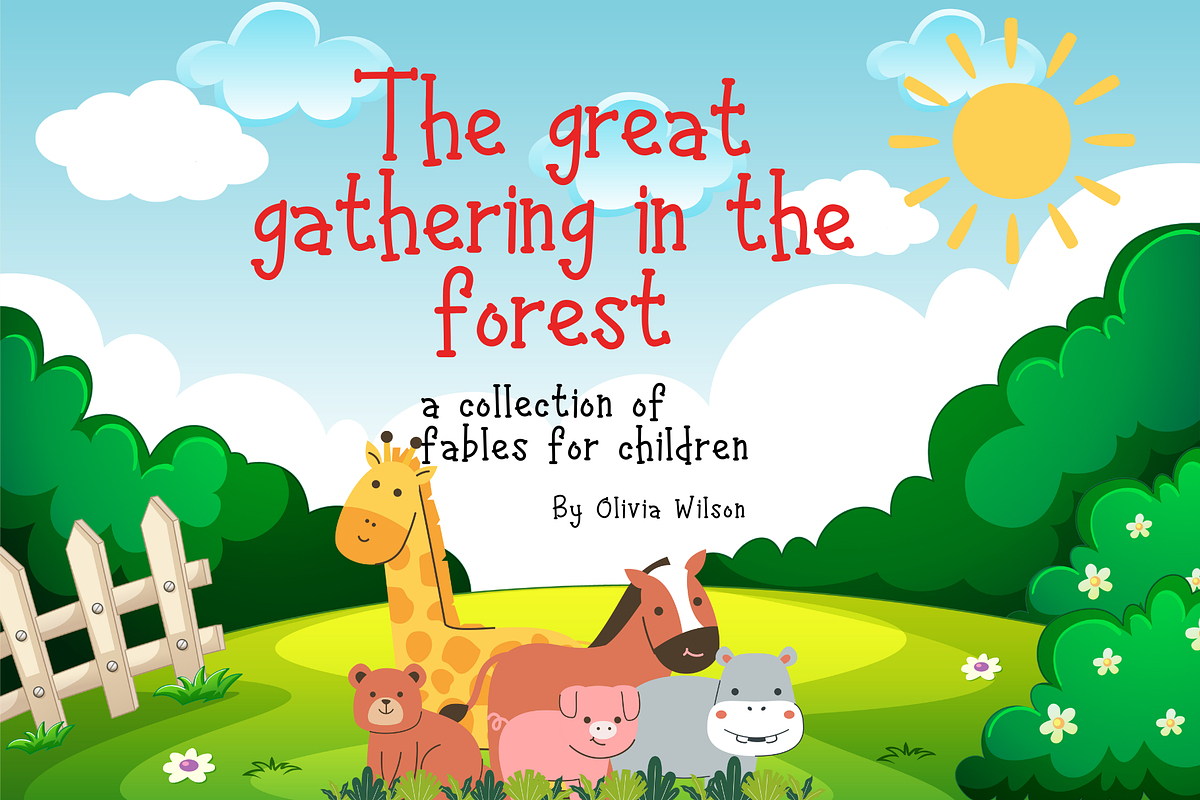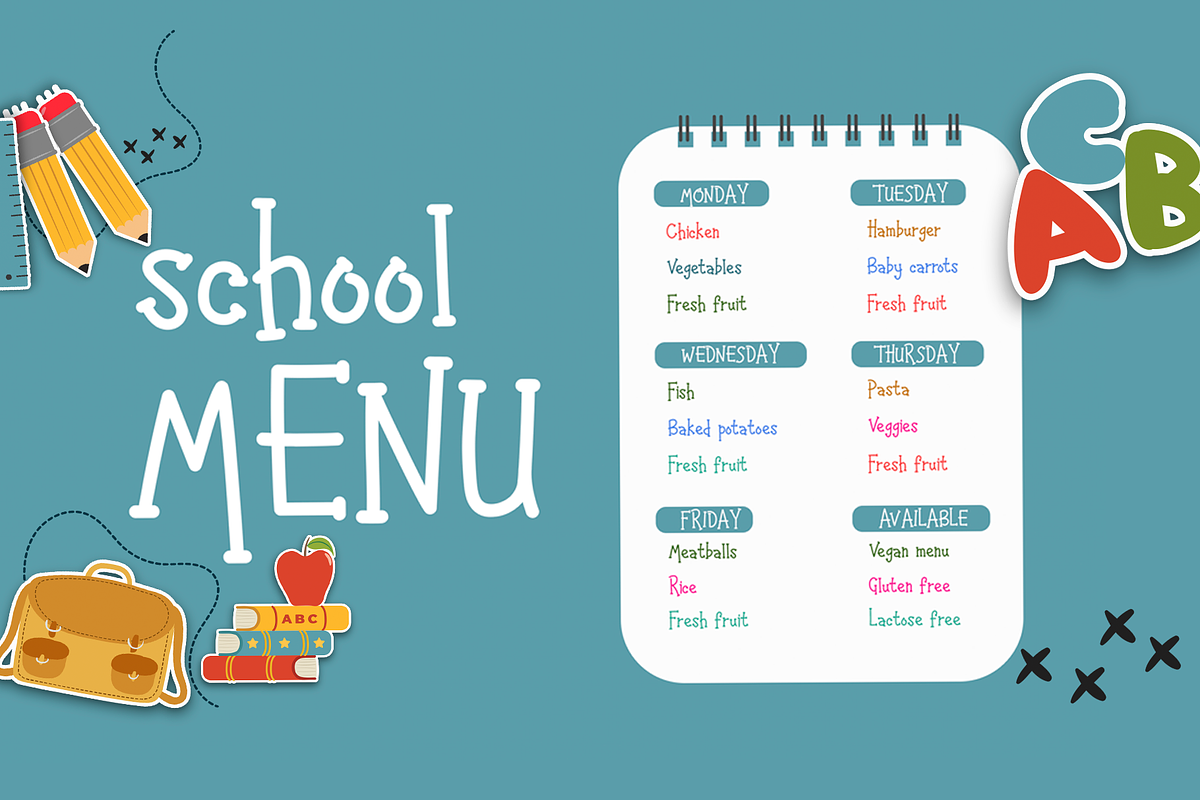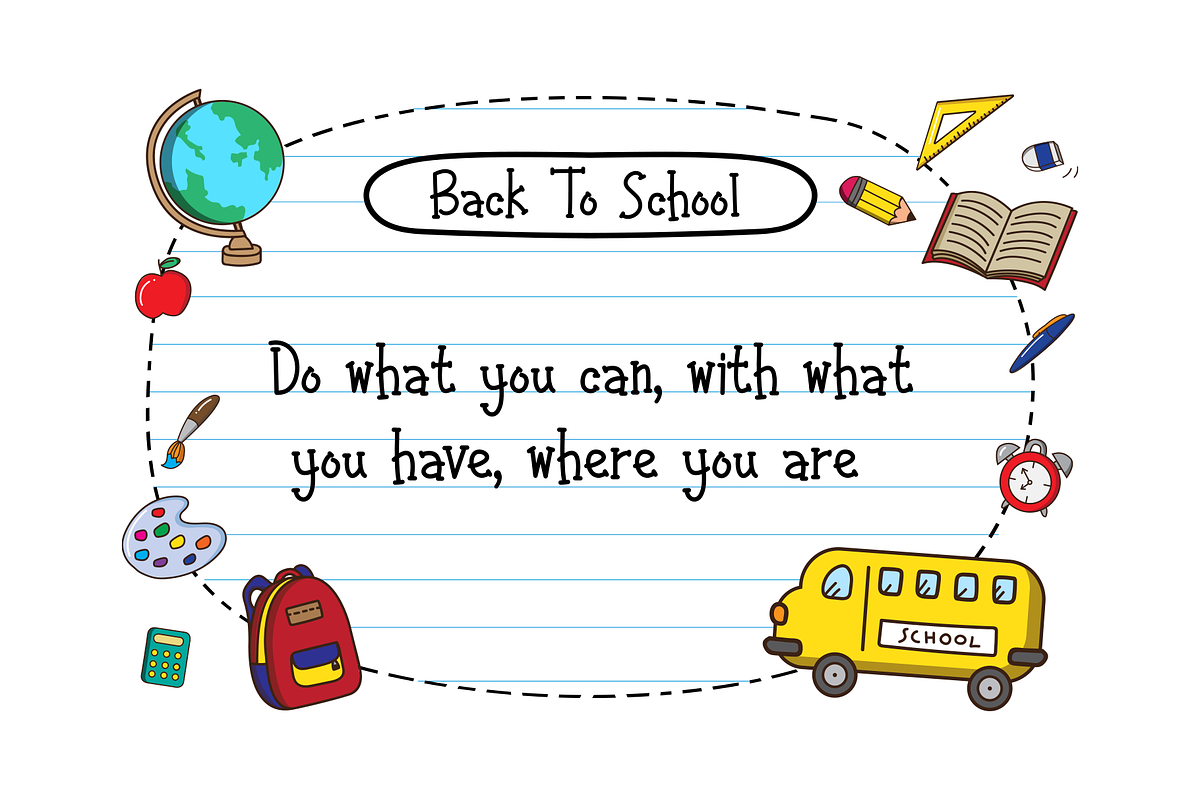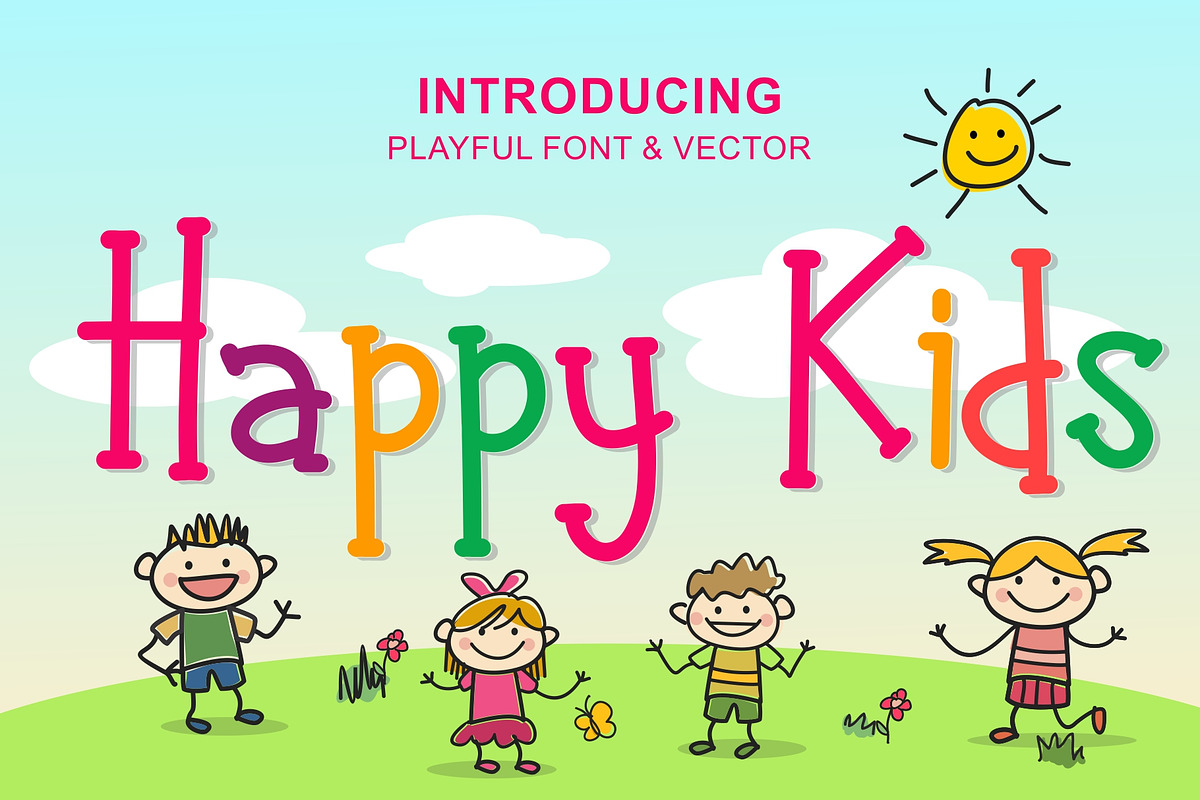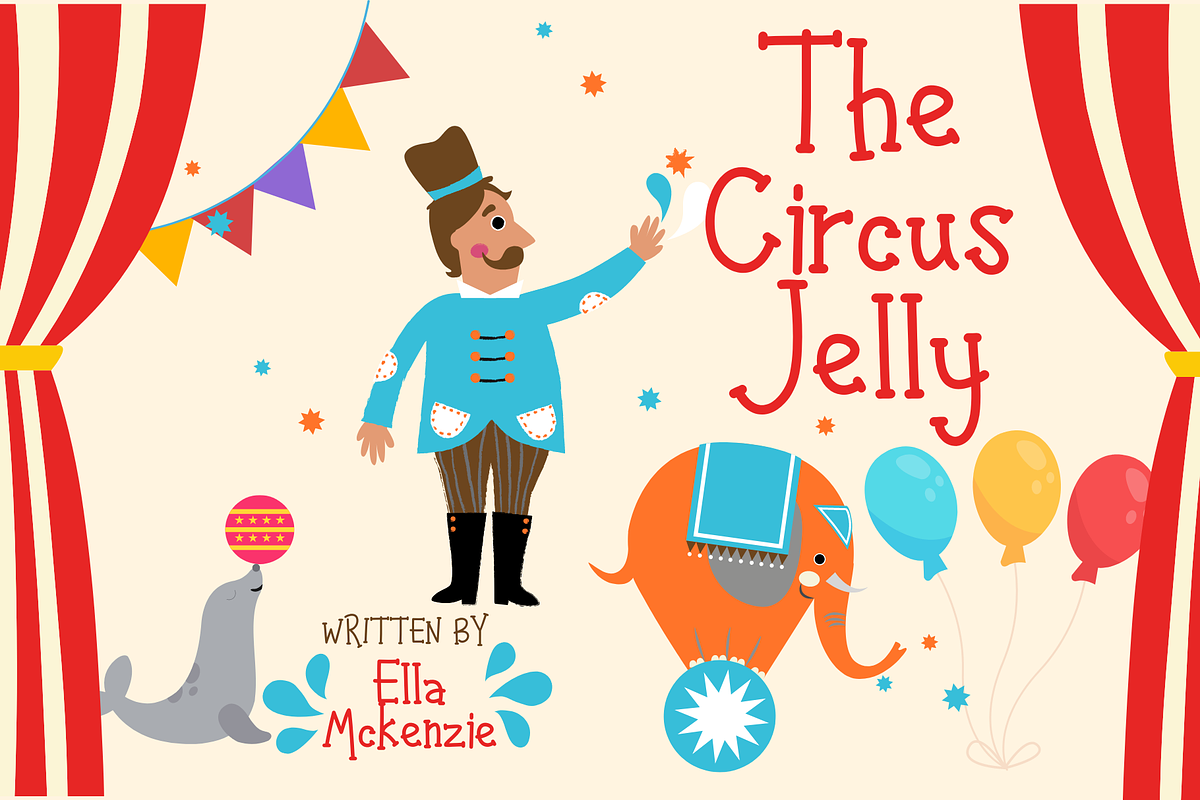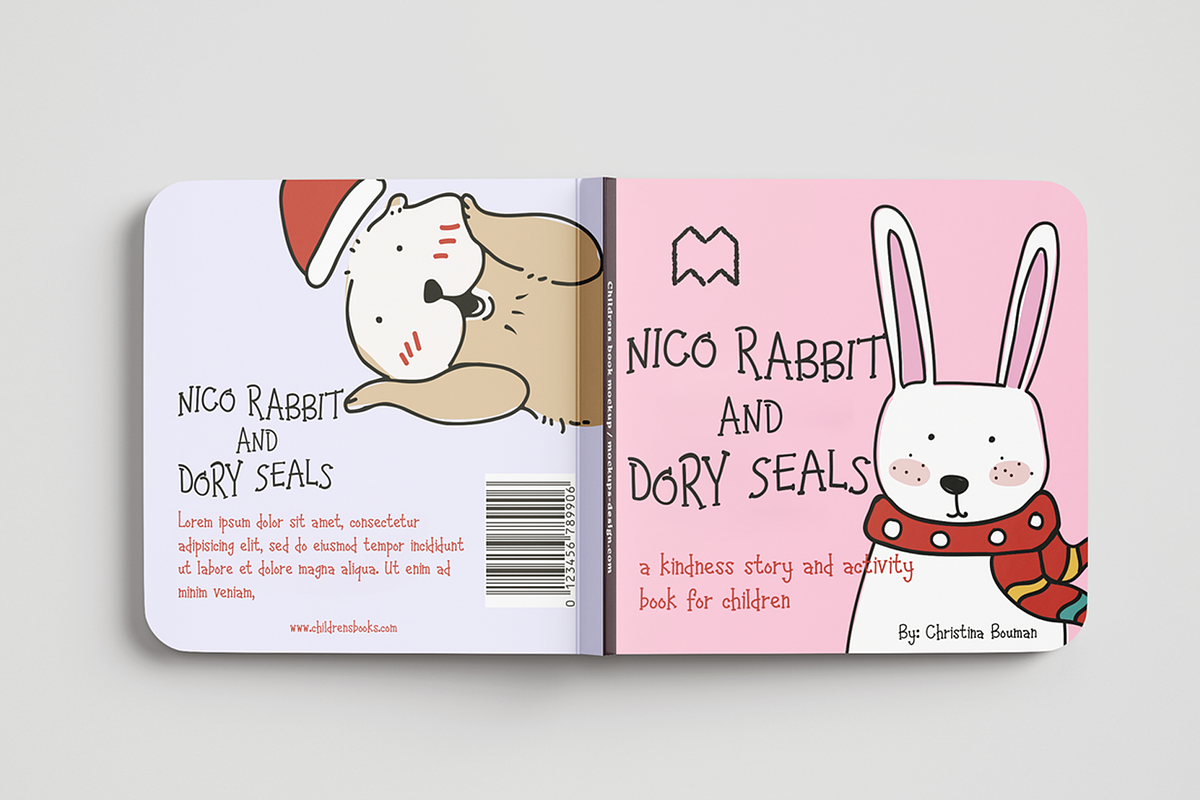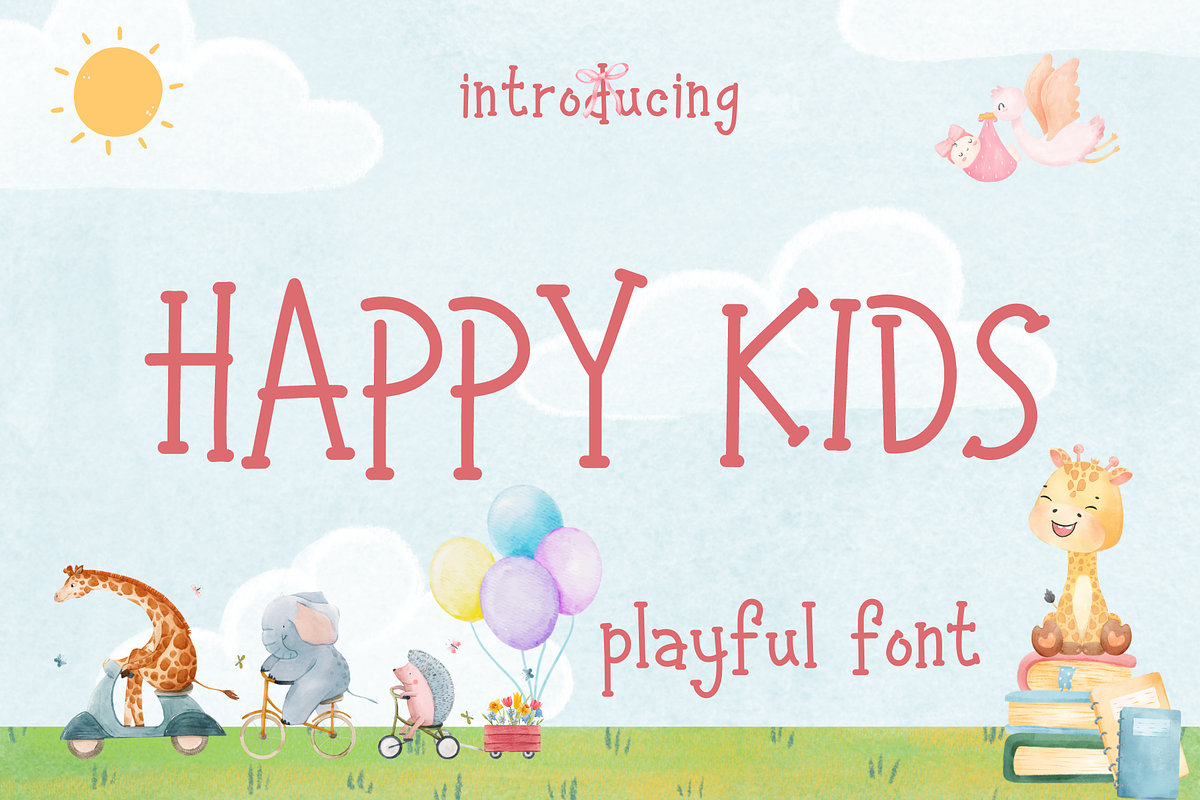
Happy Kids - Playful Font
Happy Kids is a serif font. This font can be used for comic design, children's books,
Foreign languages support:
ÀÁÂÃÄÅÆÈÉÊËÌÍÎÏÐÑÒÓÔÕÖÙÚÛÜÝßàáâãäåæèéêëìíîïðñòóôõöùúûüýÿ